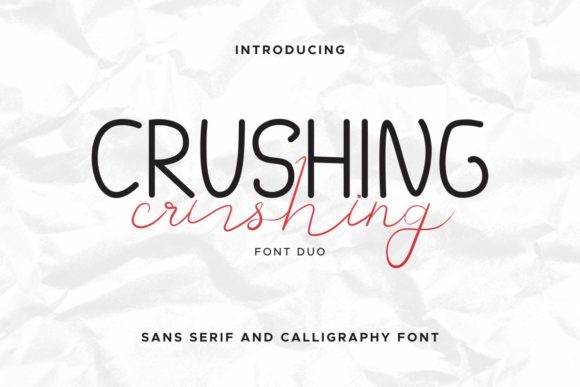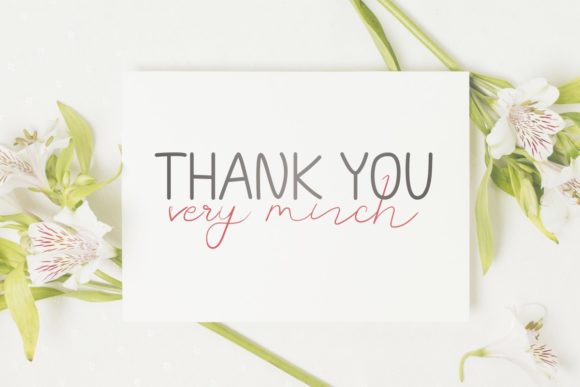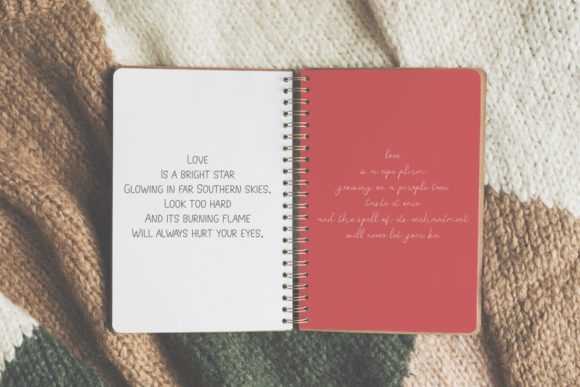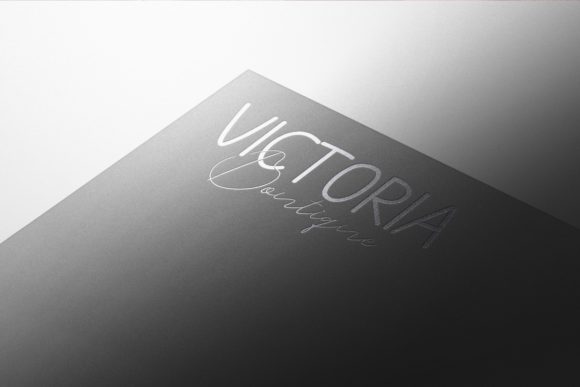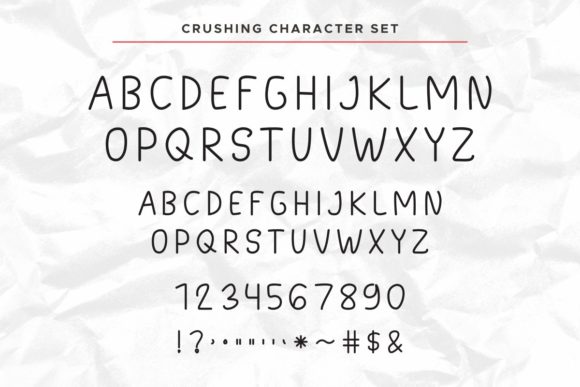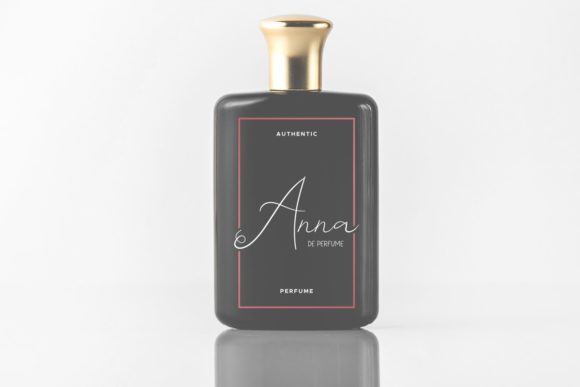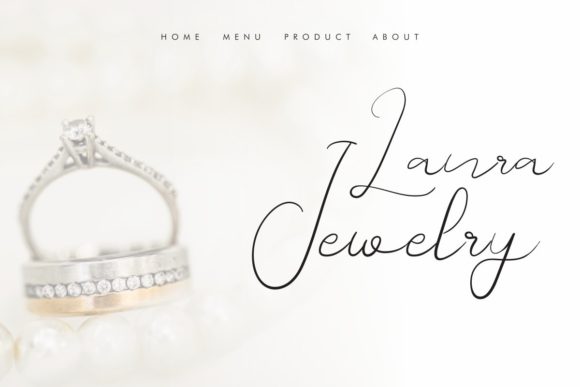
About Crushing Duo Font
Crushing consists of two fonts designed to complement each other perfectly. Together or apart, these fonts are ideal for adding a chic and cheery touch to your crafts.